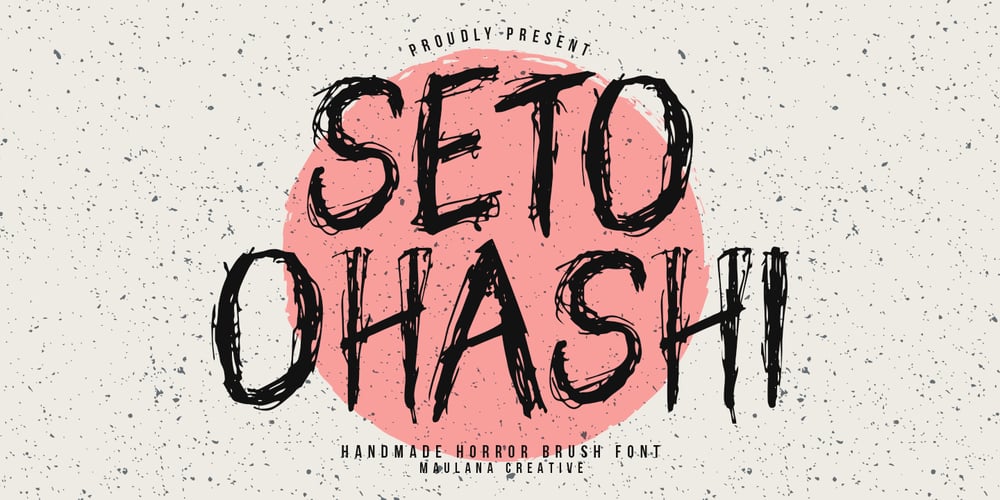
MC Seto Ohashi font
MC Seto Ohashi Font Family was designed by Gilang Maulana and published by Maulana Creative. MC Seto Ohashi contains 1 styles and family package options. Give your designs an authentic brush handcrafted feel. “Seto Ohashi” is perfectly suited to stationery, logos and much more.Many Thanks!